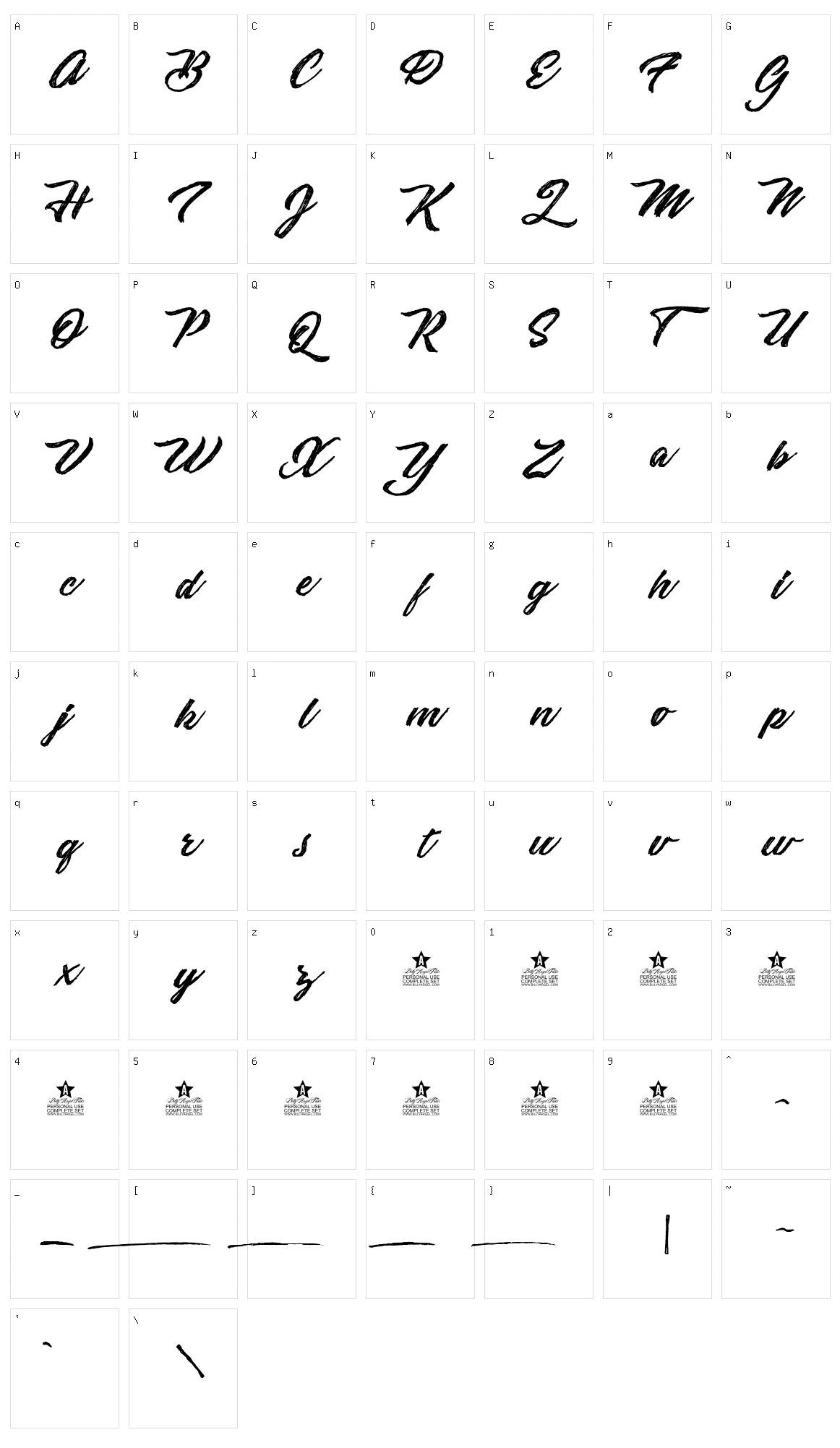
The free font Sketching Summer is carefully designed by Billy Argel Fonts ?, showcasing a thoughtful balance of creativity and usability and falls under the Old-School font style. When you download the ZIP file, it contains only 1043.83 KB of font files, making it lightweight and quick to download. Please review the license details below to understand permitted usage and distribution rights. If license information is not available, we recommend using this font for personal projects only or contacting the author directly for commercial usage permissions.